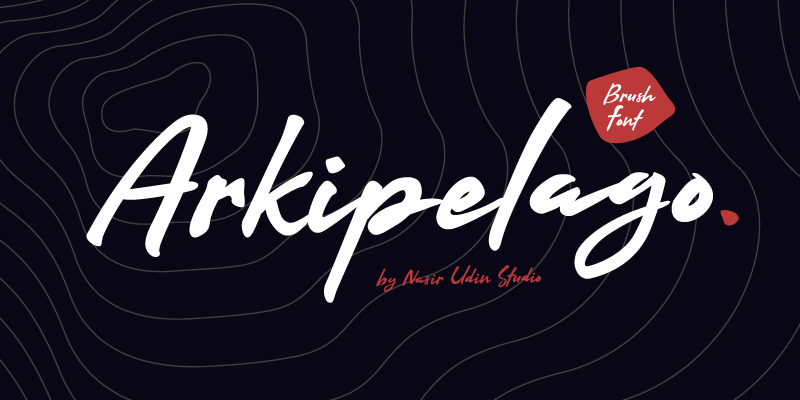
Arkipelago Brush Font
Say hello to Arkipelago, a wet inky brush script font that has a traditional vibe with its imperfect handwriting.
It contains extra alternate letters and several ligatures to make your designs look even more naturally handwritten.